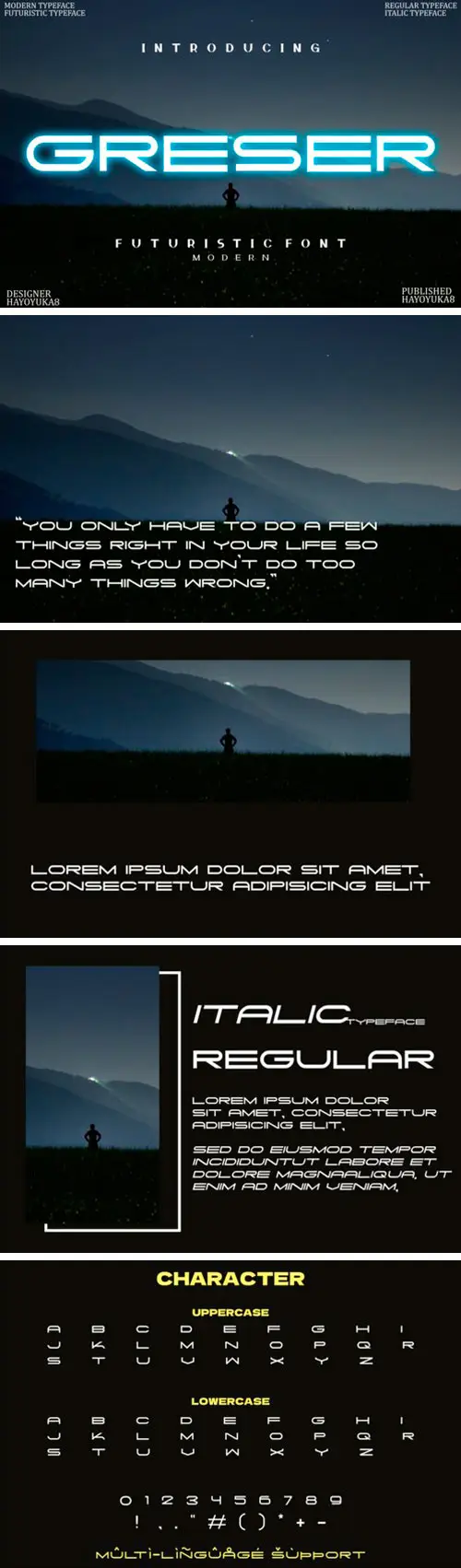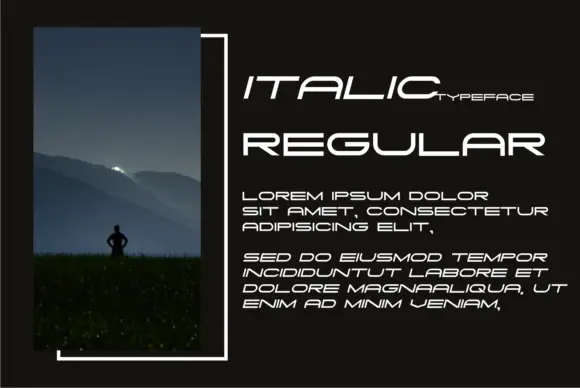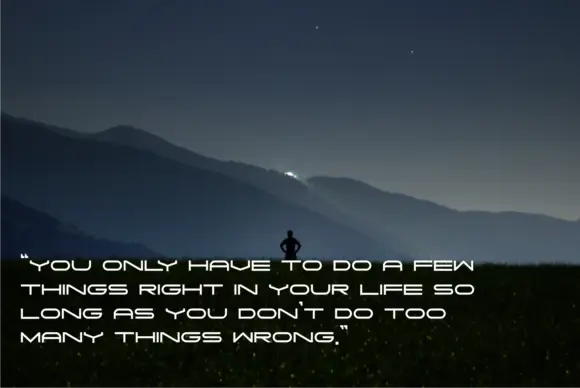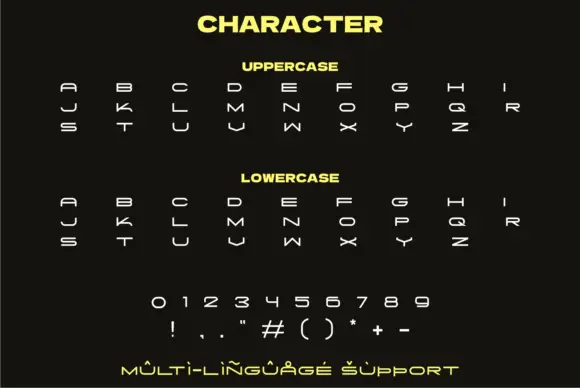
Greser Display Font
The Greser Display Font is a striking typeface designed to make a bold statement in any design project. With its unique character shapes and stylish flair, this font is perfect for branding, logos, headlines, and other display purposes.
• Distinctive display style
• Special characters and punctuation
• Weight options: Regular, Bold
Ideal for use in branding materials, posters, advertisements, and website headers, this font will elevate your design projects with its eye-catching style.